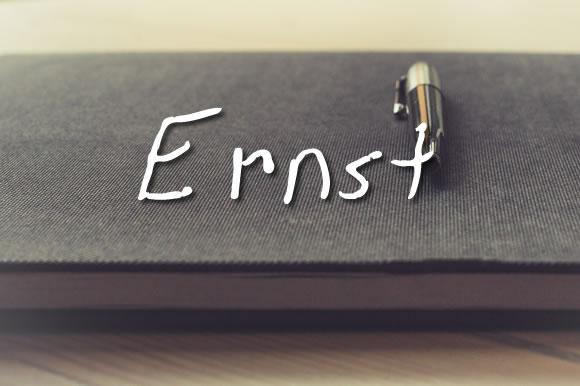
About Ernst Font
Ernst is a high powered energetic font designed to provide an interesting and authentic feel to text that needs the handwritten ballpoint pen look without descending into bland lettershapes focused solely on legibilty. Ernst has a wide array of glyphs (nearly 1500) defined for many linguistic needs including support for Cyrillic, Runic, Ogham, and various Astronomical and Astrological symbols.